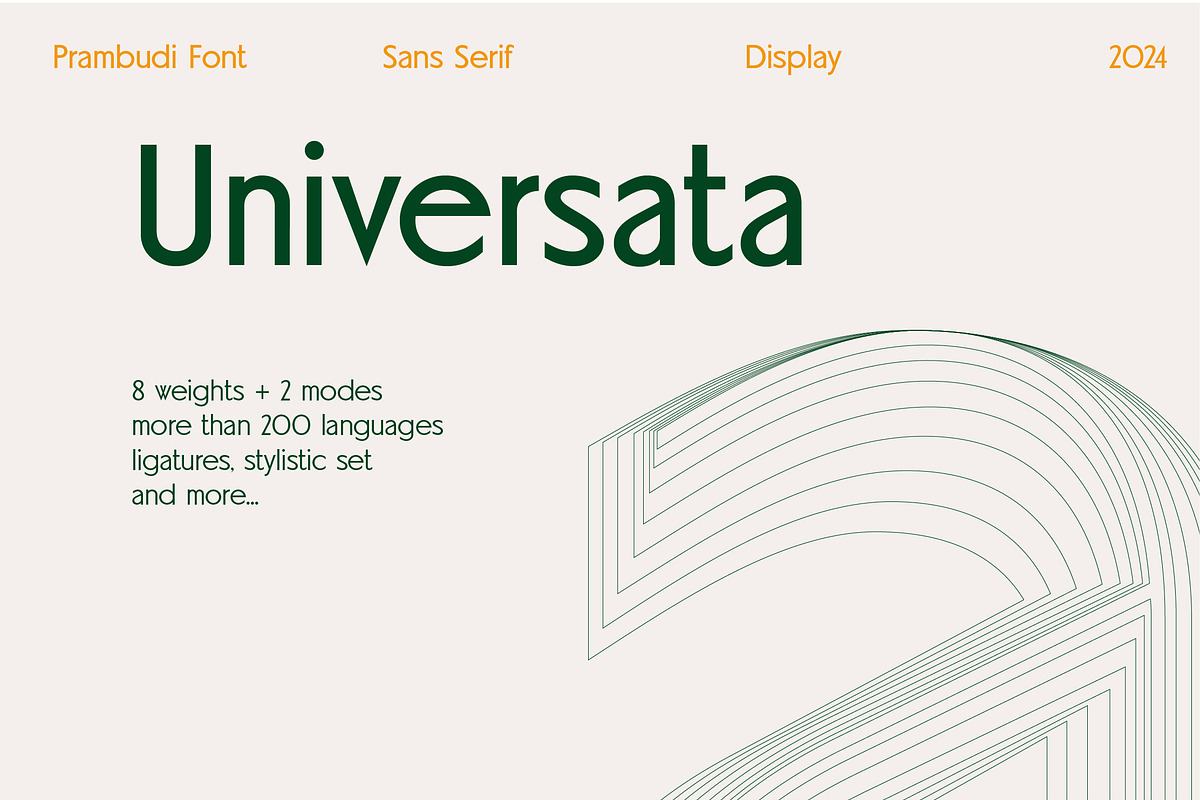
Universata Typeface (16 Fonts) Free Download is an extensive and versatile font family offering 16 different weights and styles, making it perfect for any design project. Whether you’re working on branding, editorial layouts, logos, websites, or presentations, Universata’s clean lines and modern structure ensure professional-quality typography.
From light to bold, with italics and condensed versions, this family provides endless design possibilities. Its geometric precision and well-balanced letterforms make it an ideal choice for both print and digital media. Whether you're creating corporate designs, creative marketing materials, or minimalist graphics, Universata offers the flexibility to meet your needs.
Designers love Universata for its comprehensive range, readability, and contemporary aesthetic. Download Universata Typeface (16 Fonts) Free Download today and bring exceptional versatility and modern elegance to your next project.